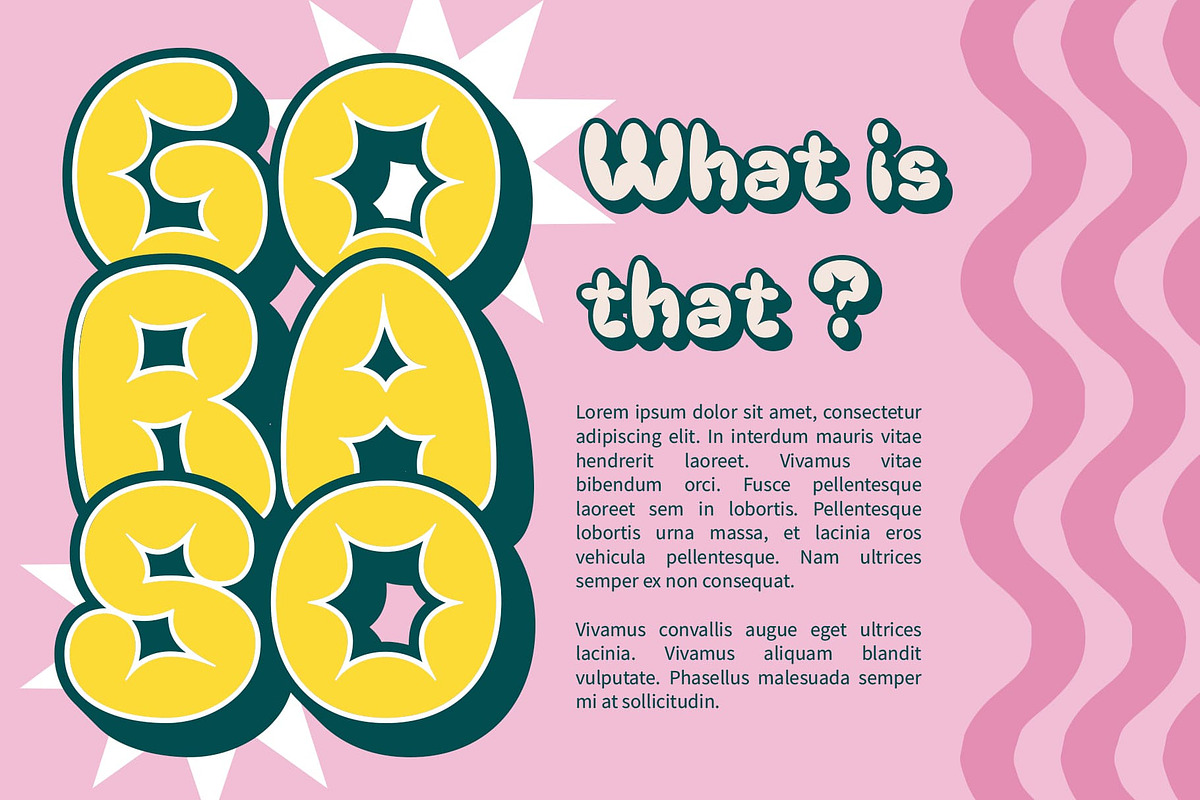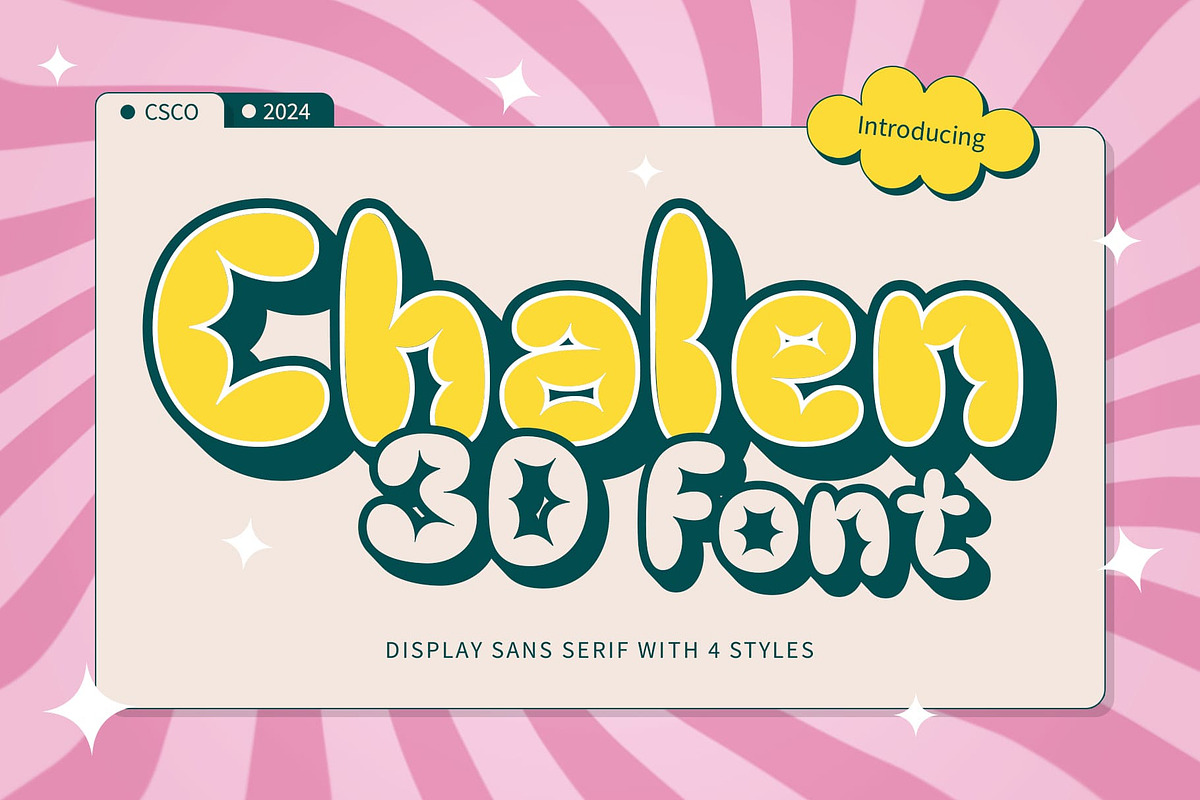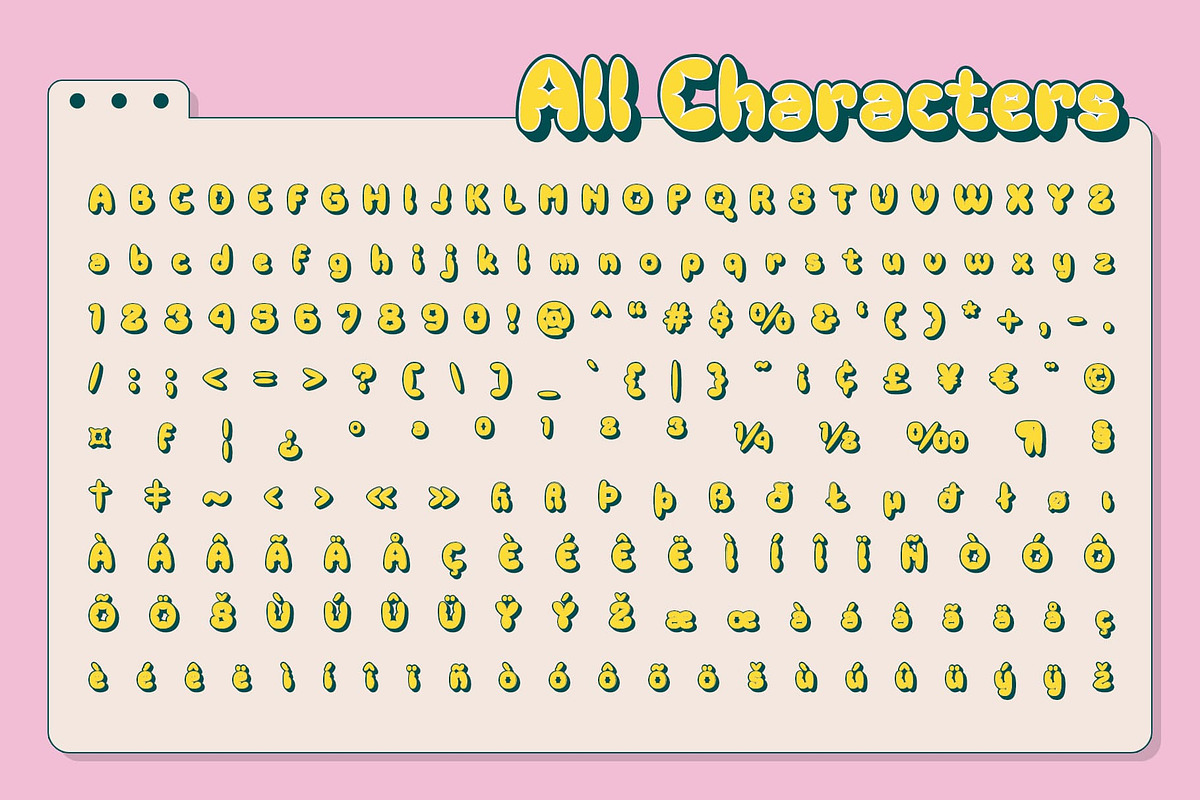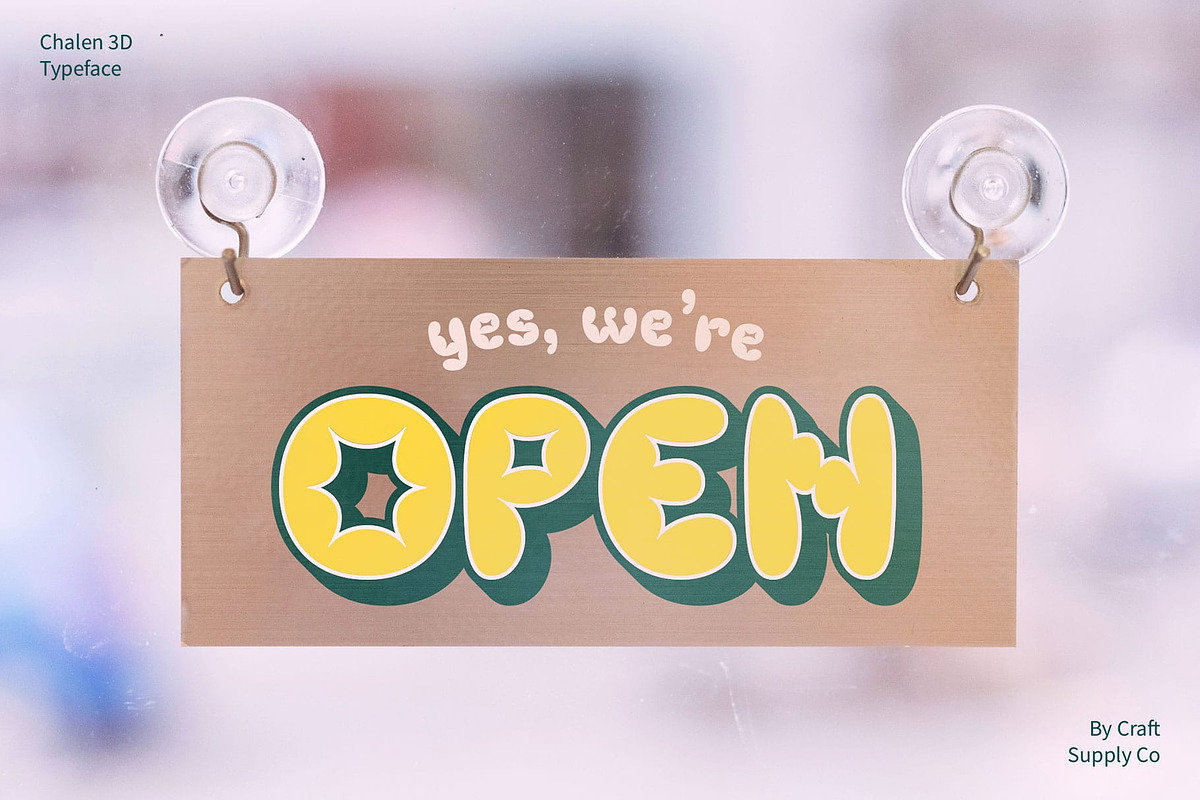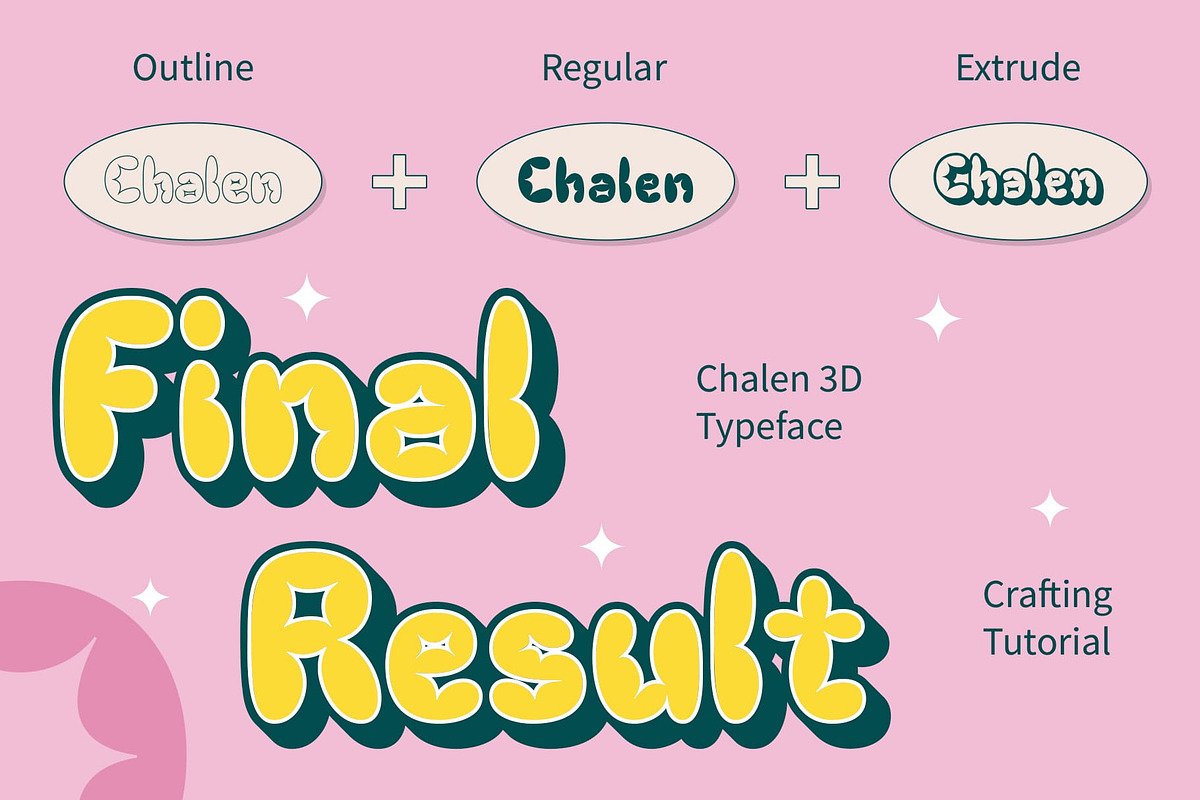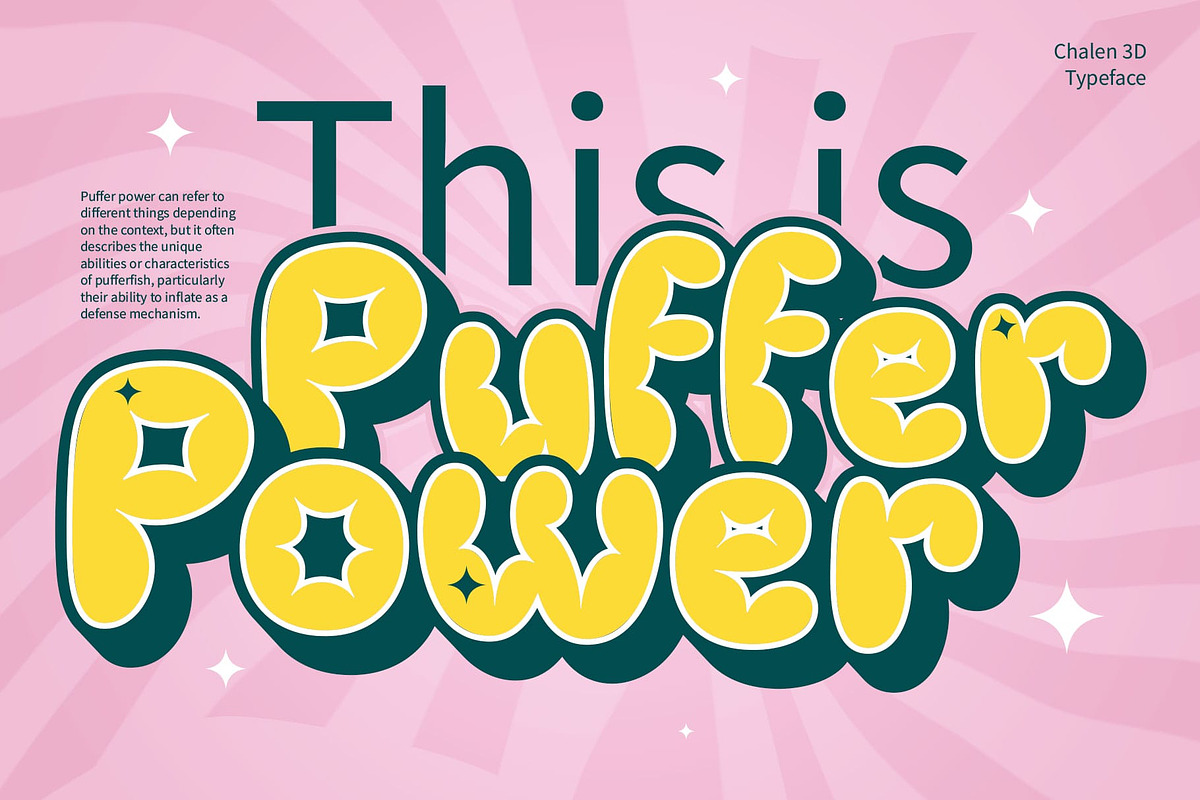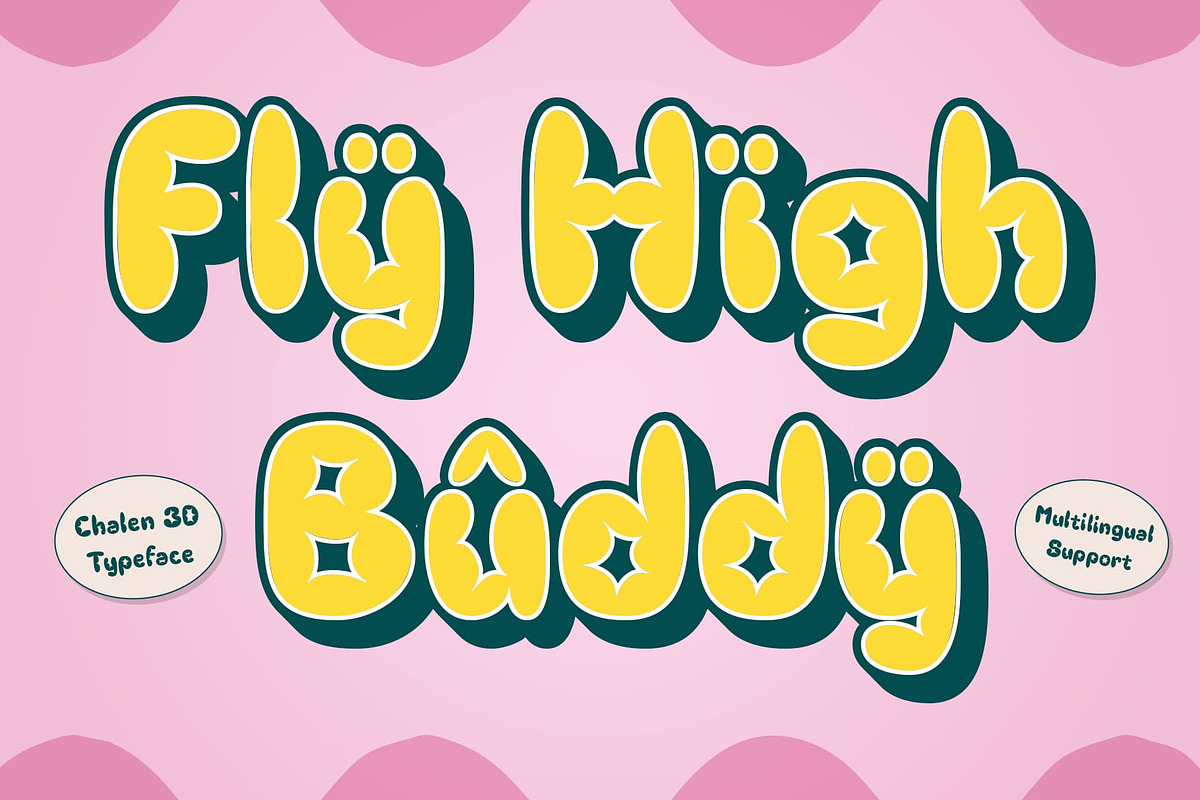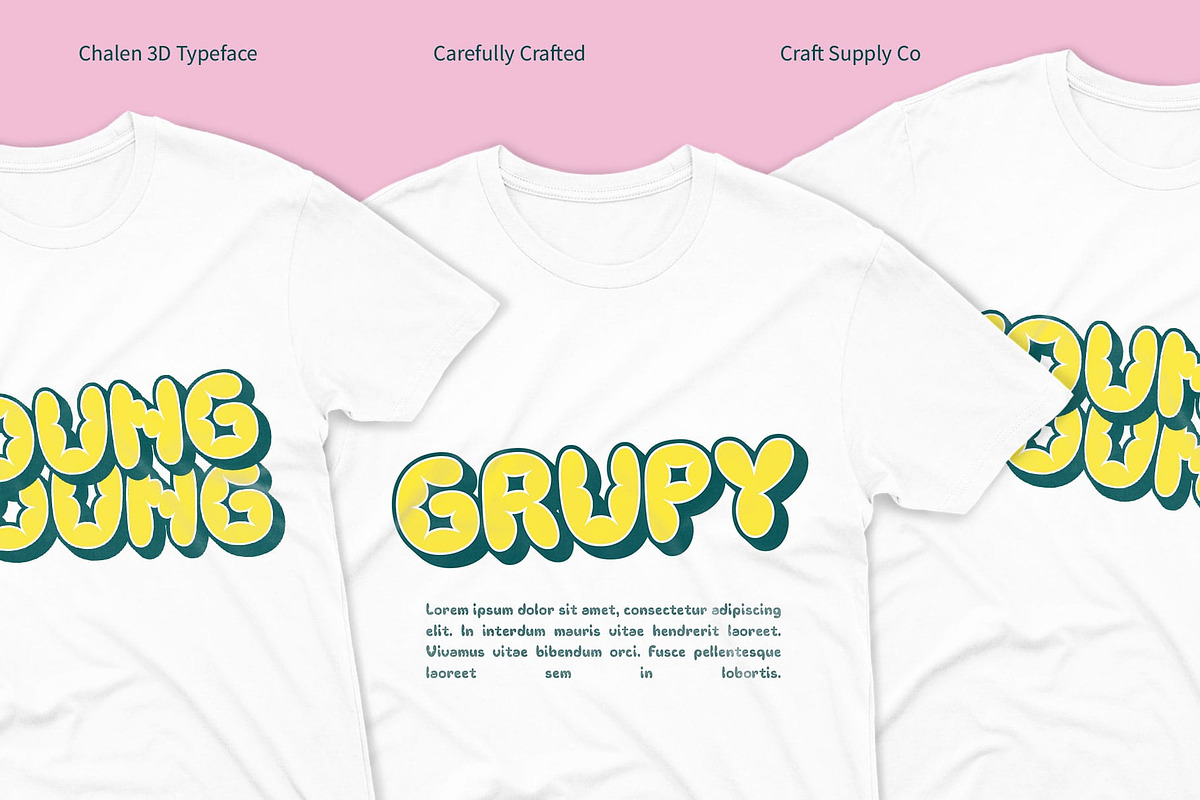
Chalen 3D
Chalen 3D Font: Bold Bubble Display Font with Playful 3D Charm
Funky and Eye-Catching Style Chalen 3D is a display font bursting with bold, bubble-shaped letters that exude a lively and fun atmosphere. Its rounded shapes and soft curves create an inviting, approachable look that’s perfect for designs aiming to convey joy and friendliness. The addition of a 3D effect gives it a distinct dimensionality, adding depth and making each character pop.
Perfect for Playful Branding This font’s cheerful, characterful style makes it ideal for creative projects, such as branding, posters, and product packaging. Its bold, eye-catching design ensures that it stands out in any layout, drawing attention and leaving a lasting impression. Chalen 3D’s playful charm makes it a fantastic choice for designs that need to communicate fun, whether it’s for a children’s product line, a vibrant event poster, or an adventurous brand identity.
Unique and Engaging Aesthetic With its unique combination of bubble-like shapes and 3D layering, Chalen 3D offers a fresh take on display fonts. It brings a modern twist to playful design aesthetics, giving any project a dynamic, youthful edge. For designs that require a quirky, engaging style with a bit of personality, this font delivers a balance of creativity and visibility, making it ideal for designers looking to bring a fun and distinctive flair to their work.
- Chalen Regular
- Chalen Outline
- Chalen Extrude Right
- Chalen Extrude Left